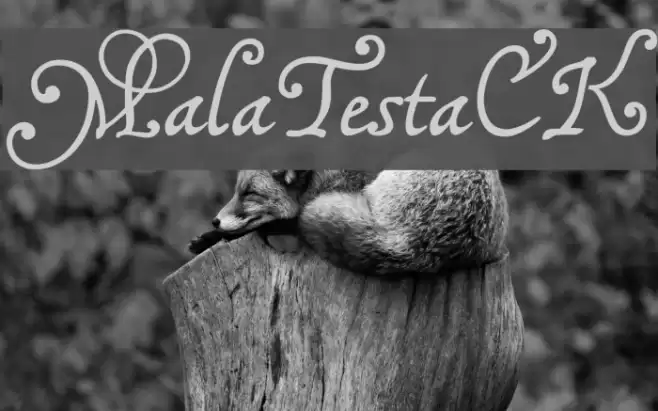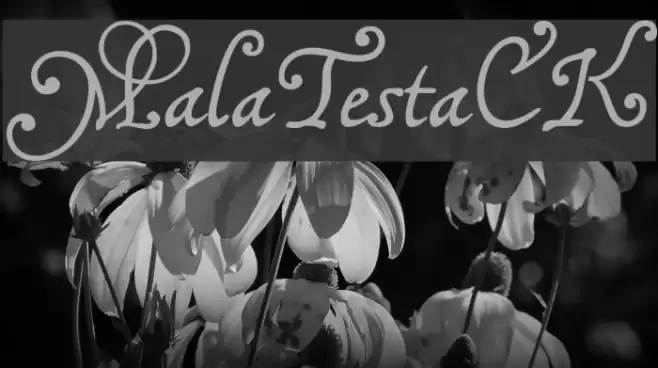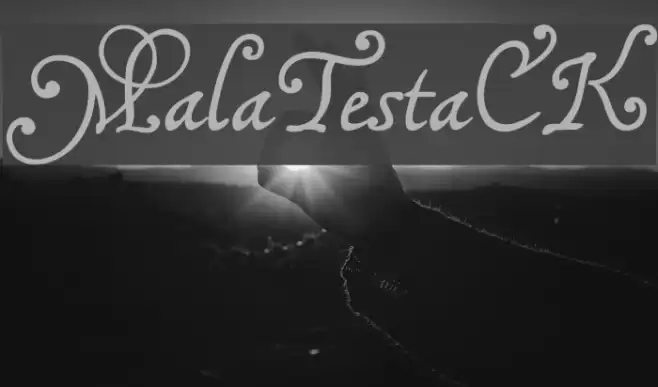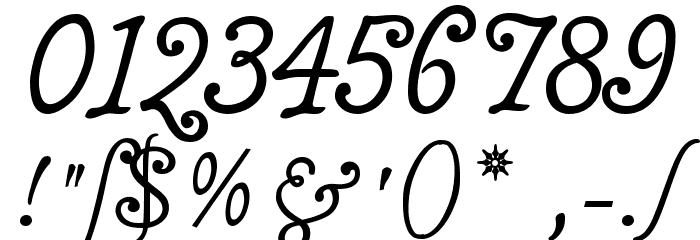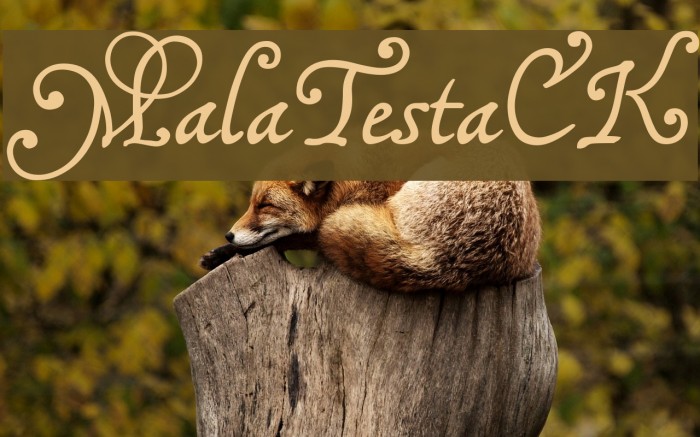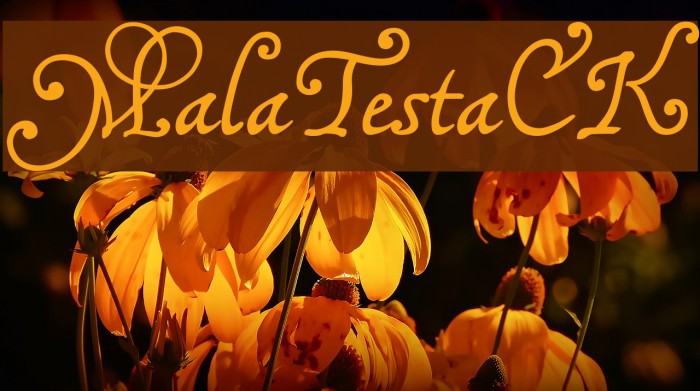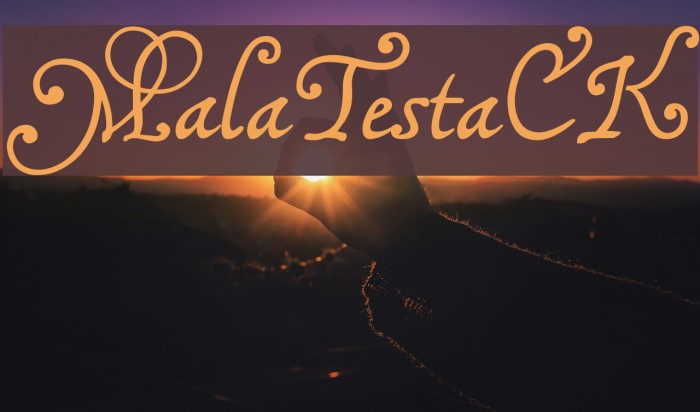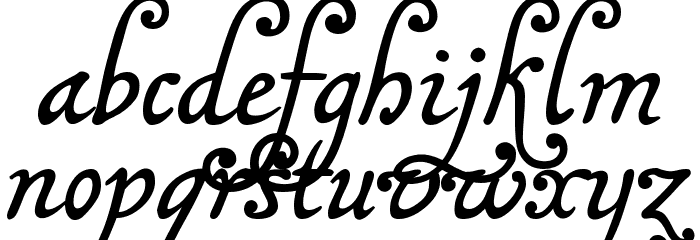
MalaTestaCK Font
MalaTestaCK Description
This font features an elegant and decorative script style, characterized by its flowing curves and intricate swirls. The uppercase letters are particularly ornate, with each character exhibiting unique flourishes that add a sense of sophistication and artistry. The lowercase letters maintain a consistent style, with smooth, connected strokes that enhance readability while preserving the decorative nature. Numerals are bold and clear, with subtle embellishments that align with the overall aesthetic. Special characters are thoughtfully designed, integrating seamlessly with the alphabetic characters. This font's intricate design makes it suitable for projects that require a touch of elegance and creativity.
An elegant and decorative script font with intricate swirls and flowing curves from Uncategorized fonts.
- Proposed Projects: Ideal for wedding invitations, luxury branding, greeting cards, and artistic projects requiring a sophisticated touch.
- Use Case: Logos, Invitations, Artistic projects